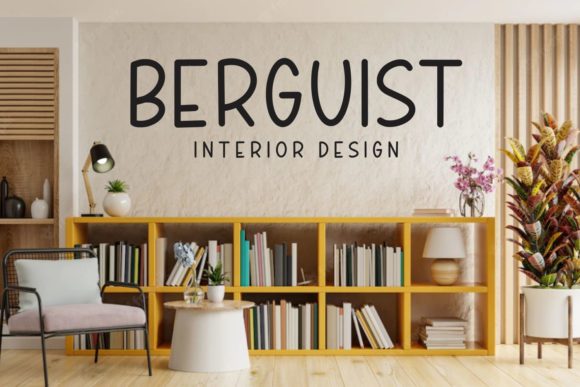
Weekly Planner Font
Weekly Planner is a clean, simple, and smart-looking handwriting font.
This font is ideal for crafting, branding, decorating, farmhouse designs, shirts, SVG designs, branding, blogs, logos, invitations, and more!